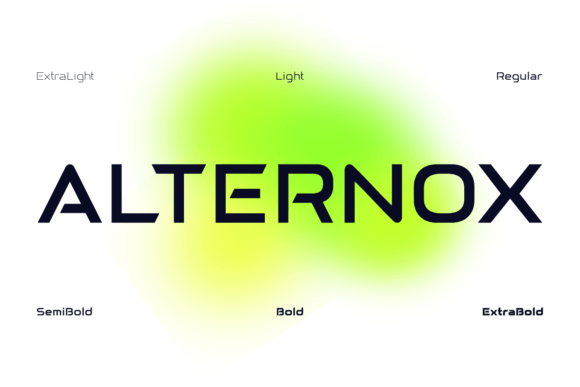
Introducing Alternox Font: A Futuristic Multipurpose Sans Serif Font Family
In the world of typography, fonts play a crucial role in conveying the tone and personality of a brand or design. With the ever-evolving design landscape, it’s essential to have access to a wide range of fonts that can cater to various needs. One such font that has gained significant attention in recent times is the Alternox Font. In this article, we’ll delve into the features, benefits, and uses of Alternox Font, and explore why it’s an excellent choice for modern designs.
What is Alternox Font?
Alternox Font is a futuristic multipurpose sans serif font family that boasts sophisticated geometric shapes. Its clean and professional design makes it an ideal choice for a wide range of projects, from logos and brand identity to technology, business cards, web design, stationery, displays, sports, and more. The font’s sleek and modern aesthetic is perfect for designers who want to create a lasting impression.
Key Features of Alternox Font
- Multipurpose: Alternox Font is designed to be versatile and can be used for various projects, including logos, branding, web design, and more.
- Geometric Shapes: The font features sophisticated geometric shapes that give it a modern and sleek look.
- PUA Encoded: Alternox Font is PUA encoded, which means you can access all the glyphs and ligatures with ease.
- Clean and Professional: The font’s clean and professional design makes it perfect for creating a lasting impression.
Benefits of Using Alternox Font
There are several benefits to using Alternox Font in your designs. Some of the most significant advantages include:
- Improved Readability: Alternox Font is designed to be highly readable, making it perfect for body text and headings.
- Enhanced Visual Appeal: The font’s modern and sleek design can add a touch of sophistication to your designs.
- Versatility: Alternox Font can be used for a wide range of projects, making it an excellent addition to any designer’s font library.
- Easy to Use: The font is PUA encoded, making it easy to access all the glyphs and ligatures.
Uses of Alternox Font
Alternox Font is a versatile font that can be used for various projects, including:
- Logos and Brand Identity: The font’s modern and sleek design makes it perfect for creating logos and brand identity.
- Technology: Alternox Font is ideal for technology-related projects, such as software, apps, and websites.
- Business Cards: The font’s clean and professional design makes it perfect for business cards and other stationery.
- Web Design: Alternox Font can be used for web design, including headings, body text, and more.
- Displays: The font’s bold and modern design makes it perfect for displays, such as billboards and signage.
- Sports: Alternox Font can be used for sports-related projects, such as team logos, jerseys, and more.
Why Choose Alternox Font?
With so many fonts available, why should you choose Alternox Font? Here are a few reasons:
- Unique Design: Alternox Font has a unique and modern design that sets it apart from other fonts.
- High-Quality: The font is of high quality, making it perfect for professional designs.
- Versatility: Alternox Font can be used for a wide range of projects, making it an excellent addition to any designer’s font library.
- Easy to Use: The font is PUA encoded, making it easy to access all the glyphs and ligatures.
In conclusion, Alternox Font is an excellent choice for designers who want to create modern, clean, and professional designs. Its futuristic multipurpose sans serif font family with sophisticated geometric shapes makes it perfect for a wide range of projects. With its PUA encoding, high-quality design, and versatility, Alternox Font is an excellent addition to any designer’s font library.